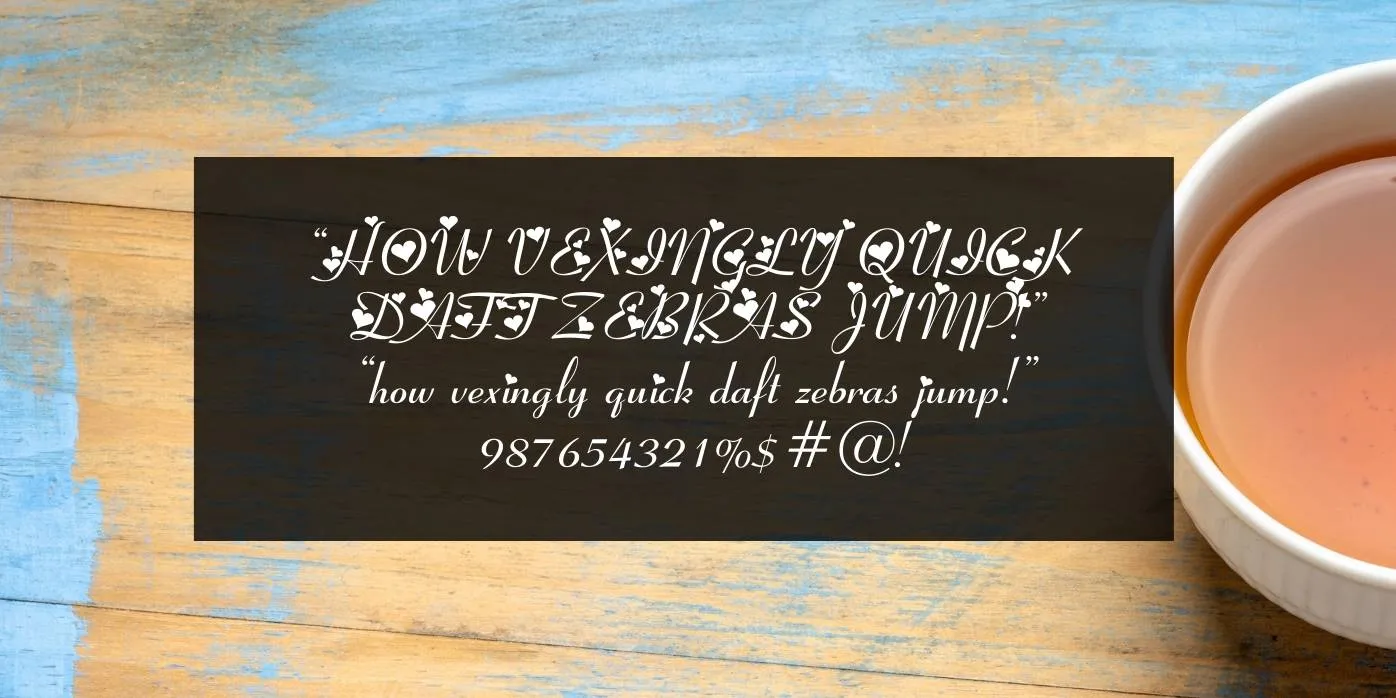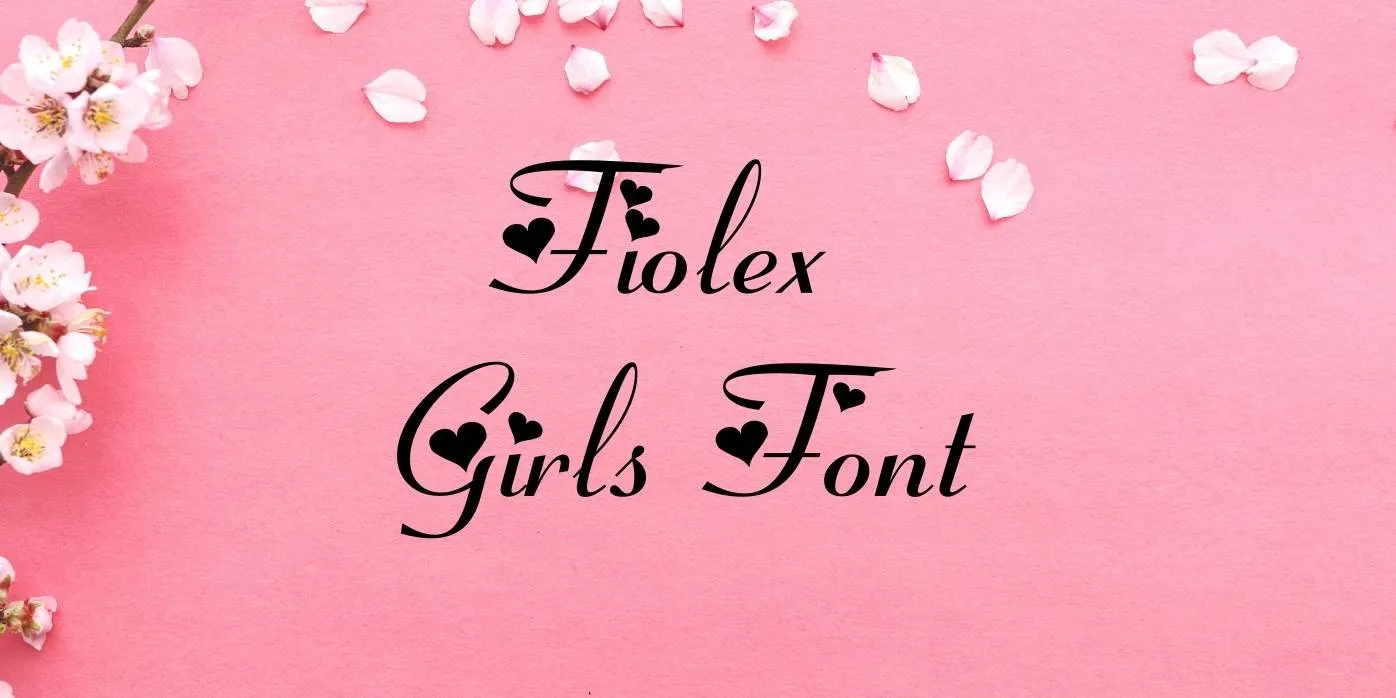
Fiolex Girls Font
In this post, we introduce a new stylish typeface that is known by the name Fiolex Girls Font. It belongs to the calligraphy font family. The designer Mr. Pedro Arilla has taken the charge of designing it for the first time.
This staggering font is specially designed for girls’ cosmetics. Because of its girly look, it becomes one of the most demanding fonts in recent times. Another similar font which is the ondise font is perfect for different designs. Many designers are looking forward to using this fine quality font in their designs.